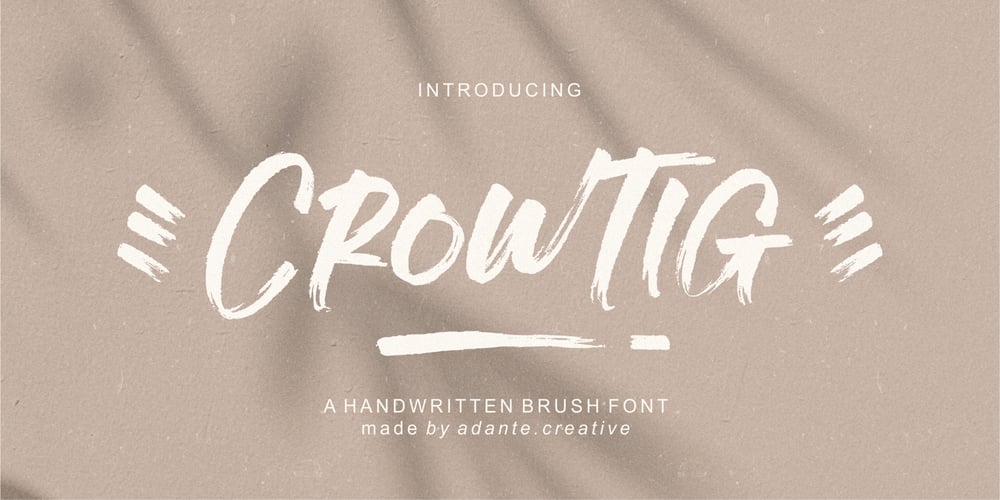
Crowtig
Crowtig font
Crowtig Font Family was designed by Yanto Suheri and published by Adante Creative. Crowtig contains 1 styles and family package options. Crowtig is A Handwritten Brush FontCrowtig is perfect for product packaging, branding project, megazine, social media, wedding, or just used to express words above the background.Crowtig also multilingual support.